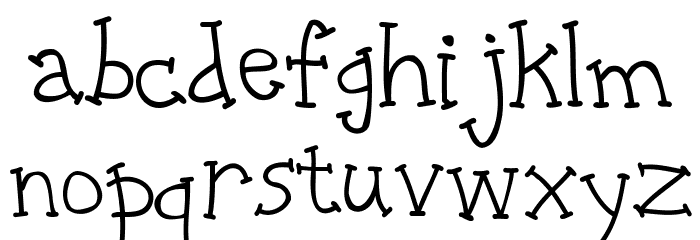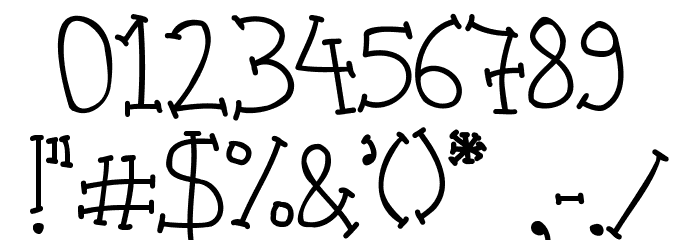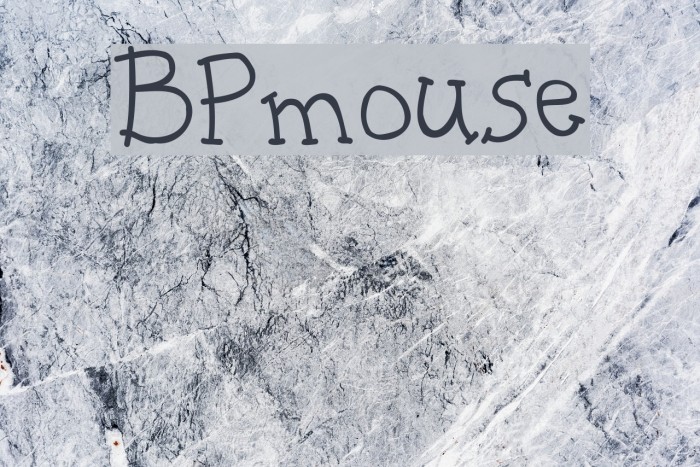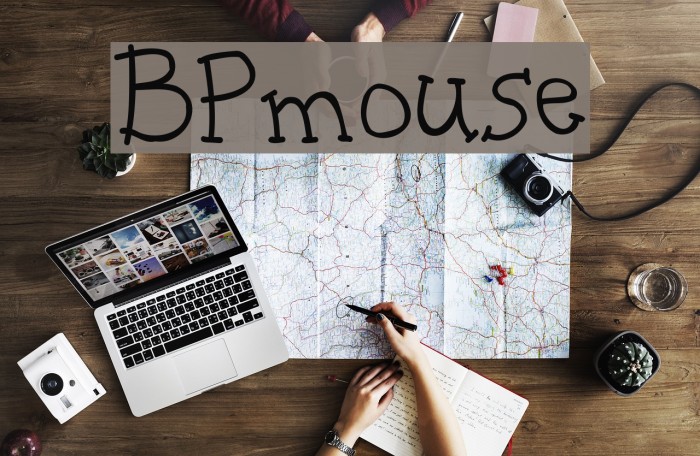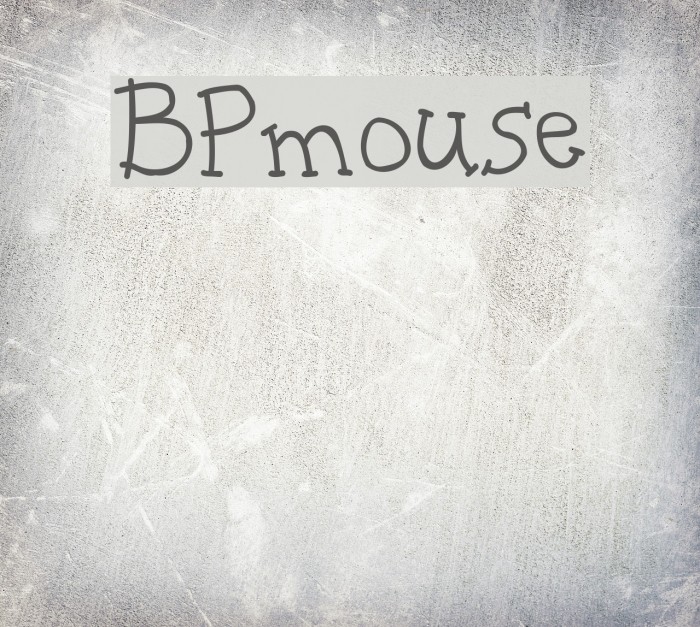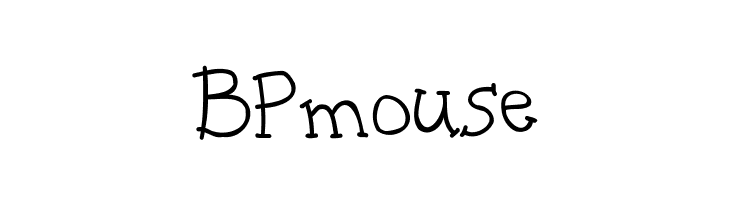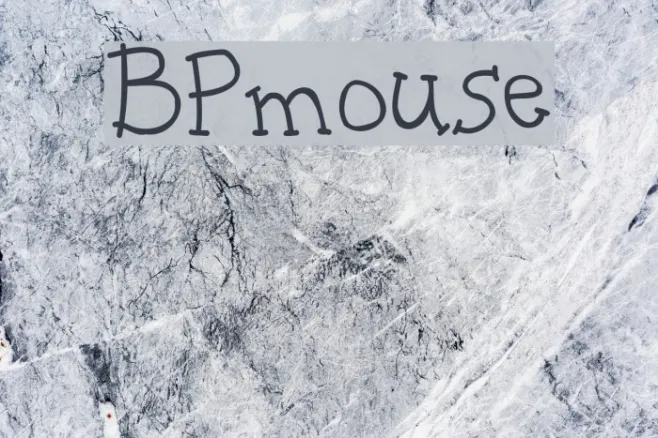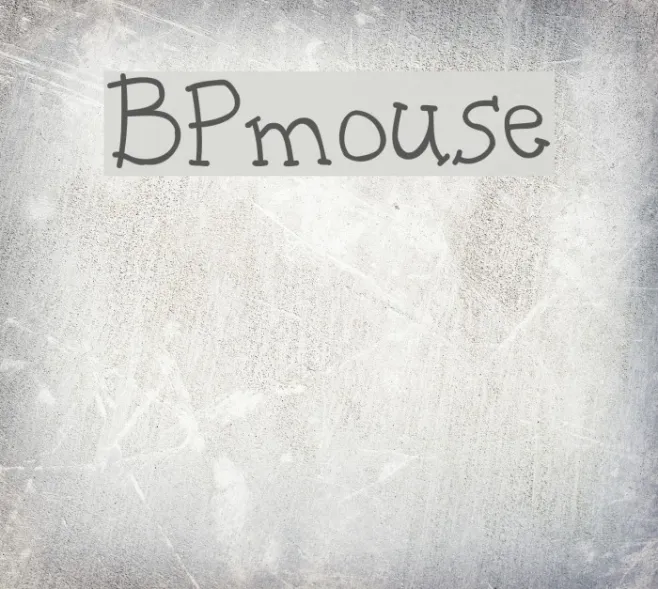
BPmouse Font
This playful and whimsical font features a hand-drawn style with uneven lines and quirky curves. The characters have a unique, almost cartoonish appearance, with exaggerated serifs and varying stroke widths that add to its charm. The uppercase letters are bold and attention-grabbing, while the lowercase letters maintain a consistent style that complements the uppercase. Numbers and special characters follow the same playful design, making this font versatile for creative projects. Its informal and fun nature makes it ideal for designs that require a touch of humor or lightheartedness.
A playful, hand-drawn font with quirky curves and exaggerated serifs.
- Proposed Projects: Children's books, comic strips, playful branding, greeting cards, and party invitations.
- Overall Style: Whimsical